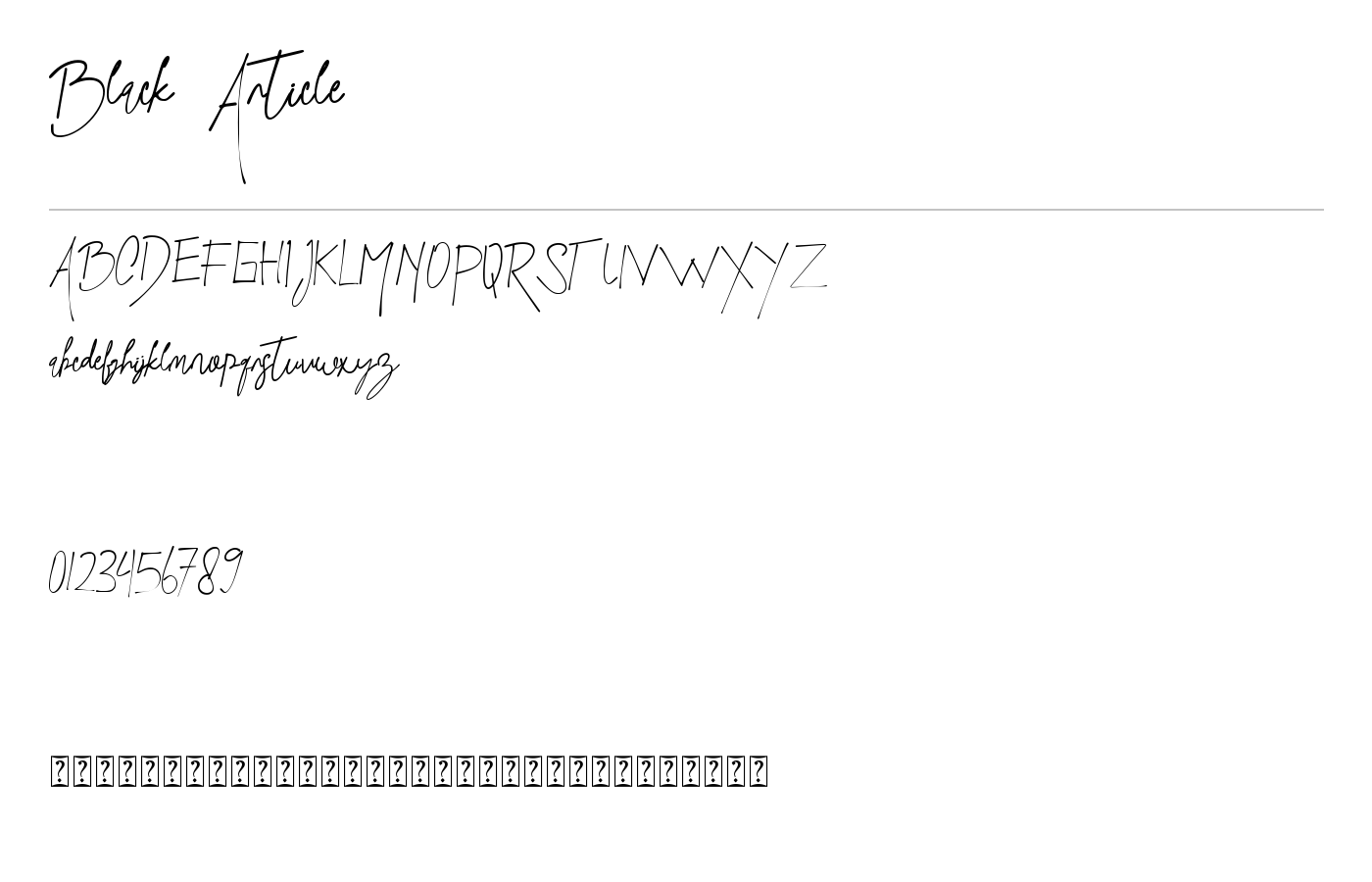
Black Article Font is a delicate, handwritten script with a tall, narrow structure and fine strokes that convey a sense of elegance and personal touch. Its thin, slightly irregular lines create a sophisticated yet informal feel, making it ideal for creative projects like invitations, branding, and stylish editorial headlines. This font works best when used sparingly to add a unique, artistic flair to designs that seek a modern and refined handwritten look.
Black Article Font
About Black Article Font